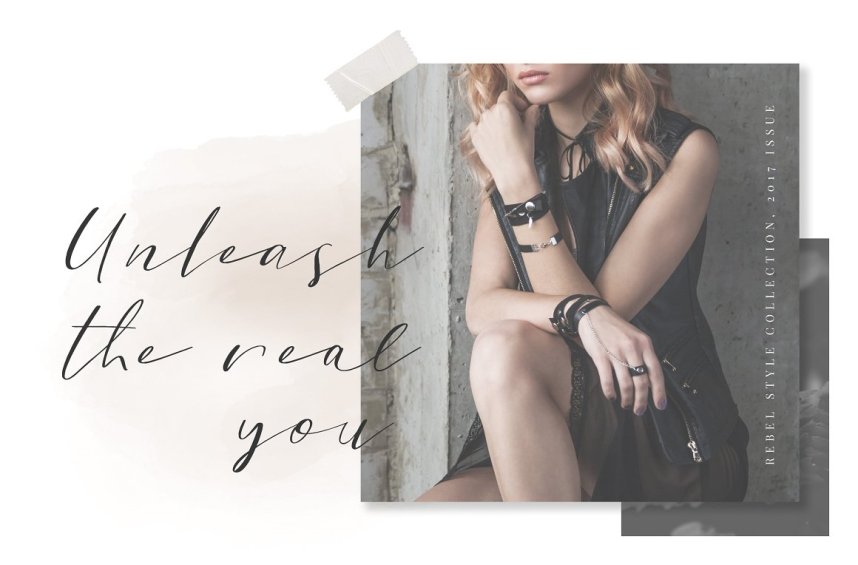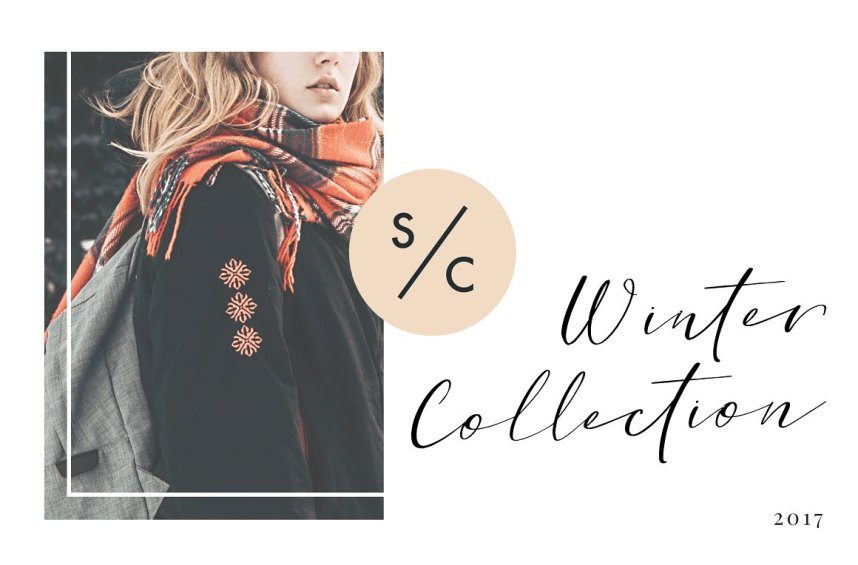
Sweet Patterson Script Font
Sweet Patterson – Beauty Font
Continue to be a beautiful modern calligraphy script font. I believe you will love this font, it will make your work great. Introducing SweetPatterson. It is was designed by Ian Irwanwismoyo. Sweet Patterson, a beautiful and lovely modern calligraphy script font with perfectly imperfect written by the hand. Perfectly fit for branding, logo, wedding things, greeting cards, fashion, anytime you need to pour some love.